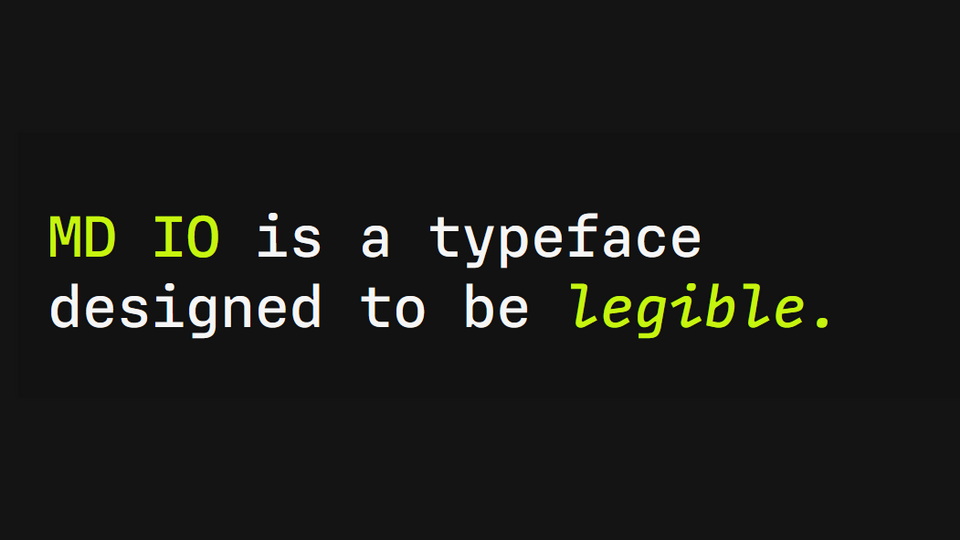
Download MD IO font, a clean monospace typeface designed for legibility, particularly at small sizes and on digital screens. MD IO makes use of ink traps, a generous x-height, and unique constructions.
Designer: Rutherford Craze